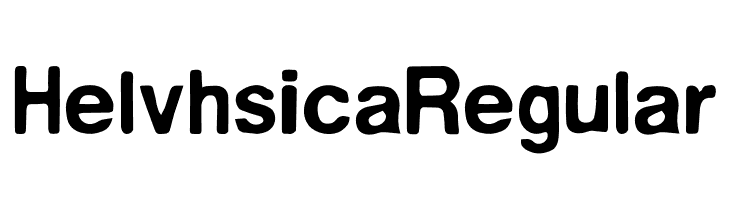
A bold, hand-drawn font with textured, dynamic strokes.
A tall, narrow, and playful font with a modern and casual aesthetic.
A bold, modern font with angular uppercase and rounded lowercase letters.
A bold, brush script font with a textured, hand-painted look.
Victorian-style decorative ornaments with intricate designs.
A bold, pixelated font with a retro digital aesthetic.
A modern, italic font with clean lines and consistent stroke width.
A bold, rounded font with a playful and modern style.